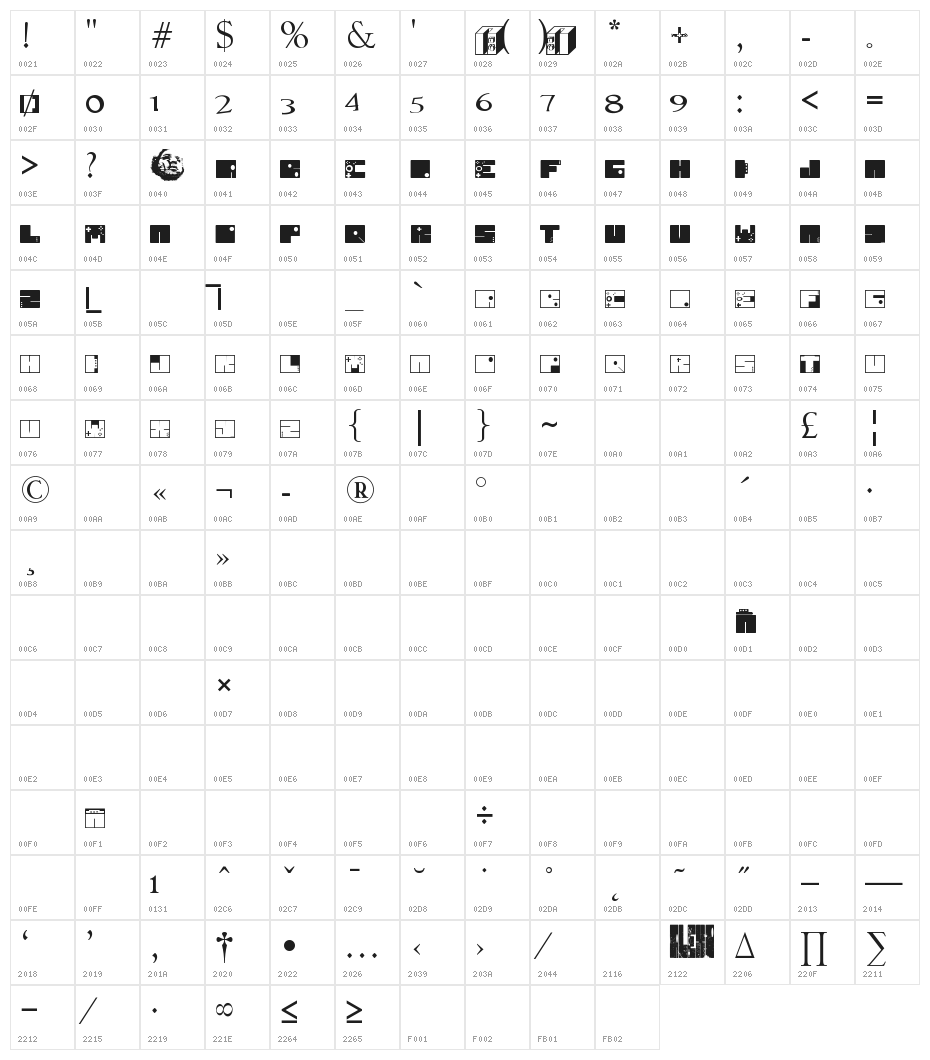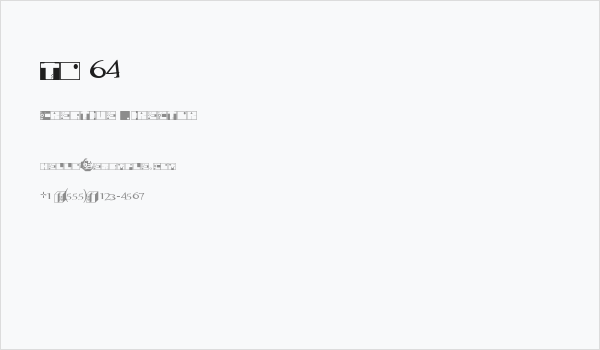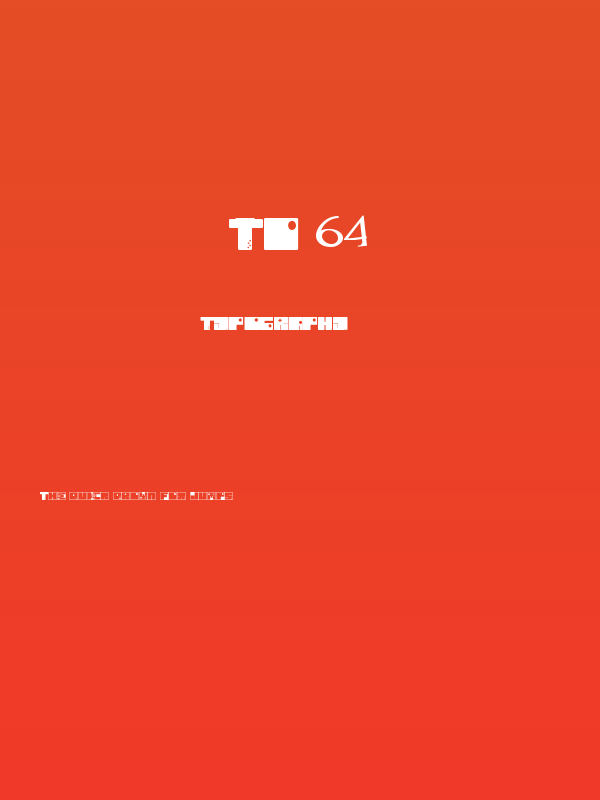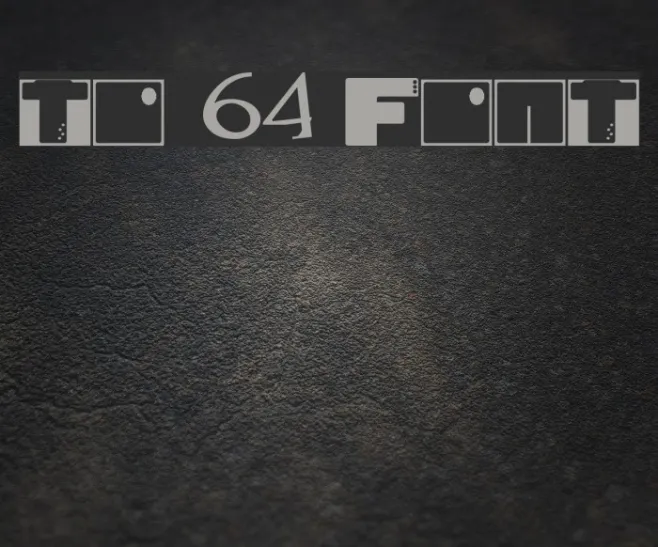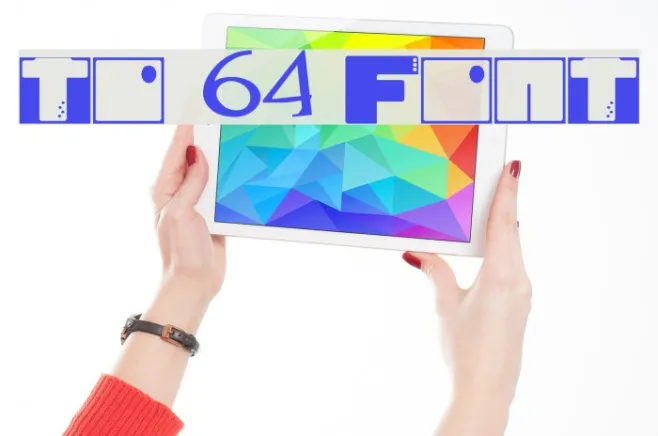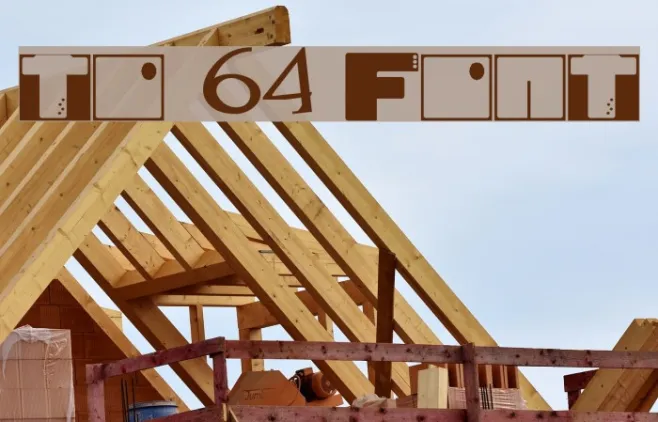
to 64 Font
to 64 Description
This font features a bold and geometric design with a playful and futuristic aesthetic. The characters are composed of solid blocks and lines, incorporating unique cutouts and shapes that add a dynamic and modern touch. The uppercase letters are particularly striking, with each character having a distinct and innovative form. The lowercase letters maintain the same geometric style, offering consistency throughout the typeface. Numbers are designed with a sleek and slightly curved appearance, complementing the overall style. Special characters are creatively integrated, enhancing the font's versatility for various design projects.
| Overall Style | Futuristic, Playful |
| Proposed Projects | Ideal for tech-related branding, video game titles, futuristic posters, and creative digital media. |